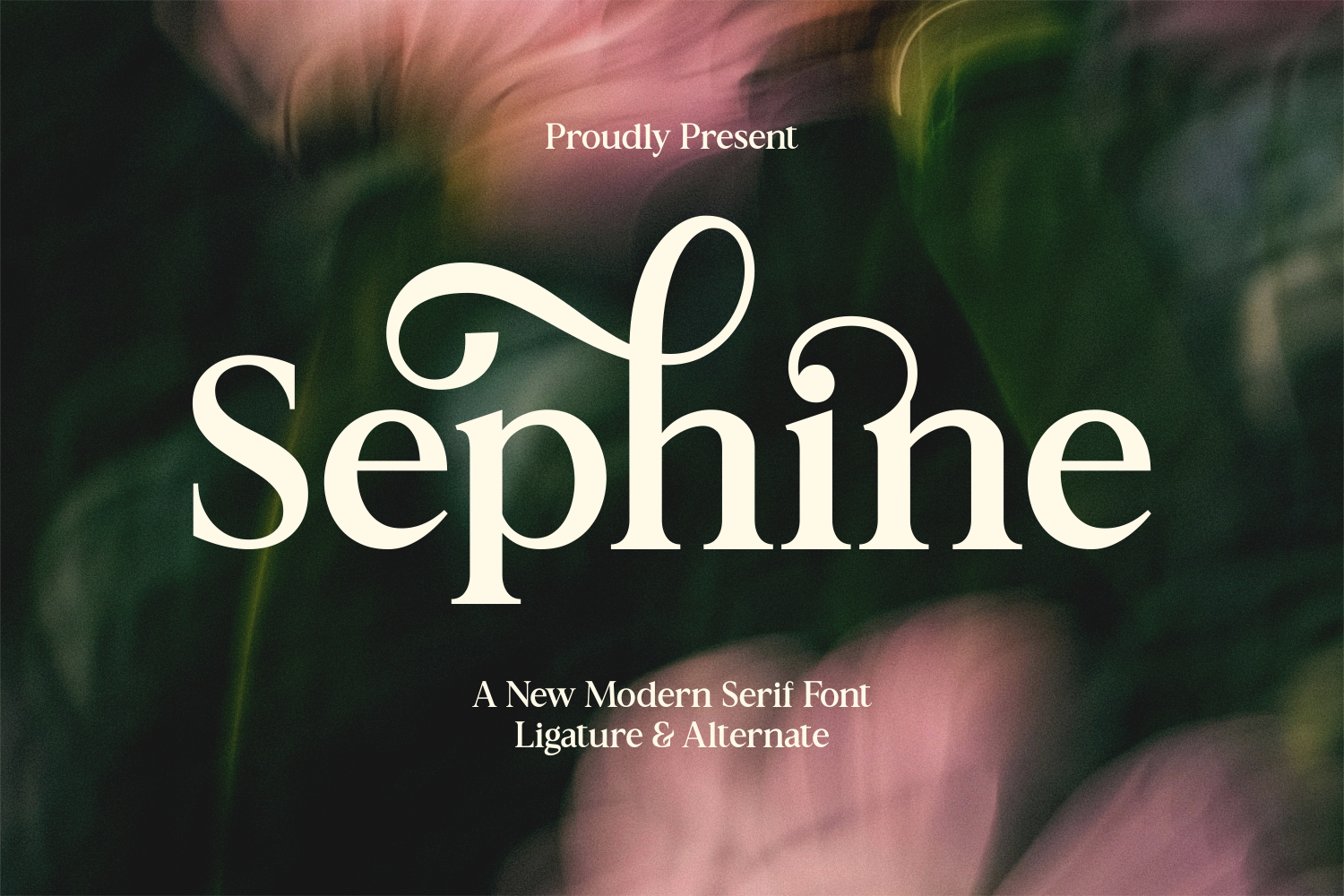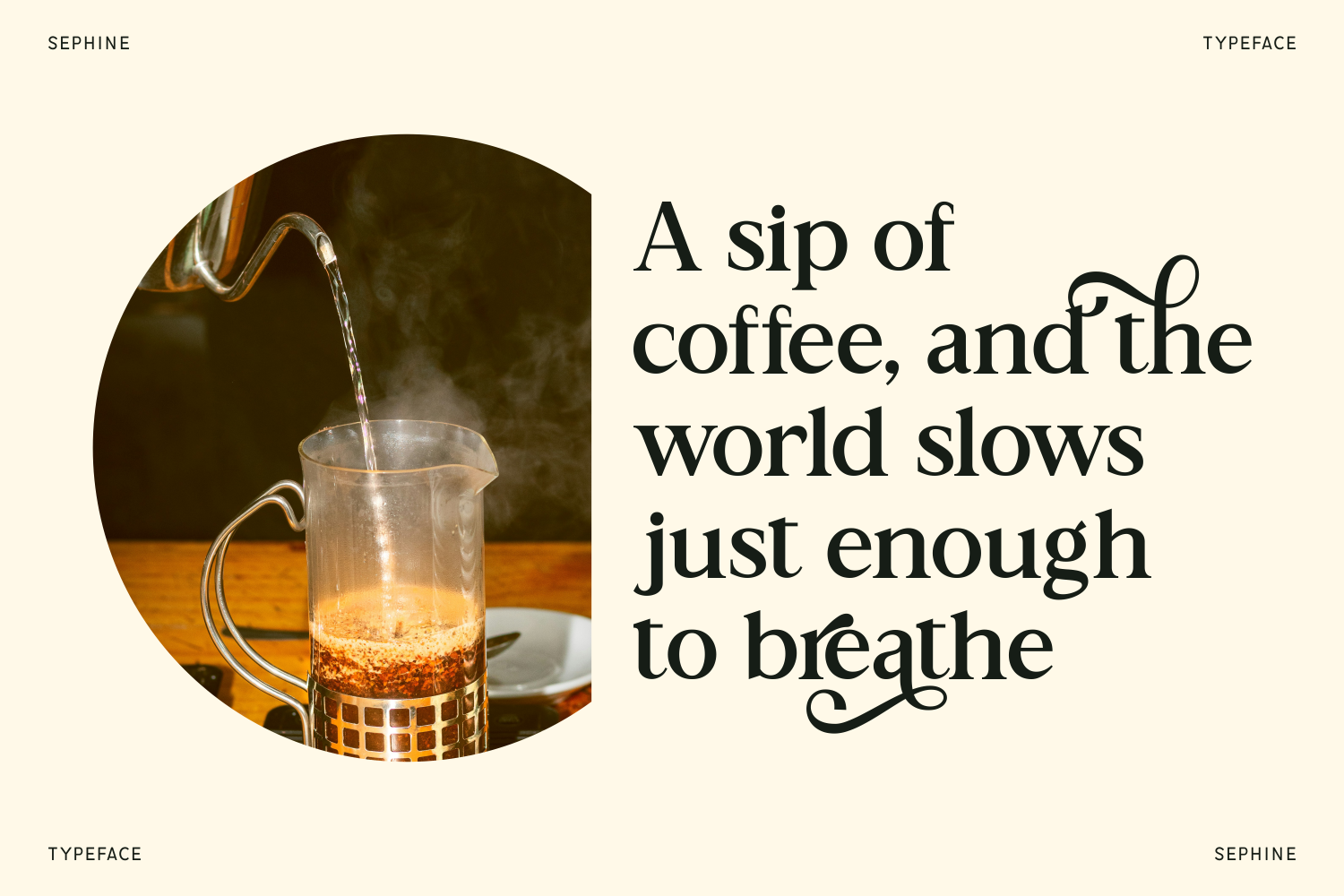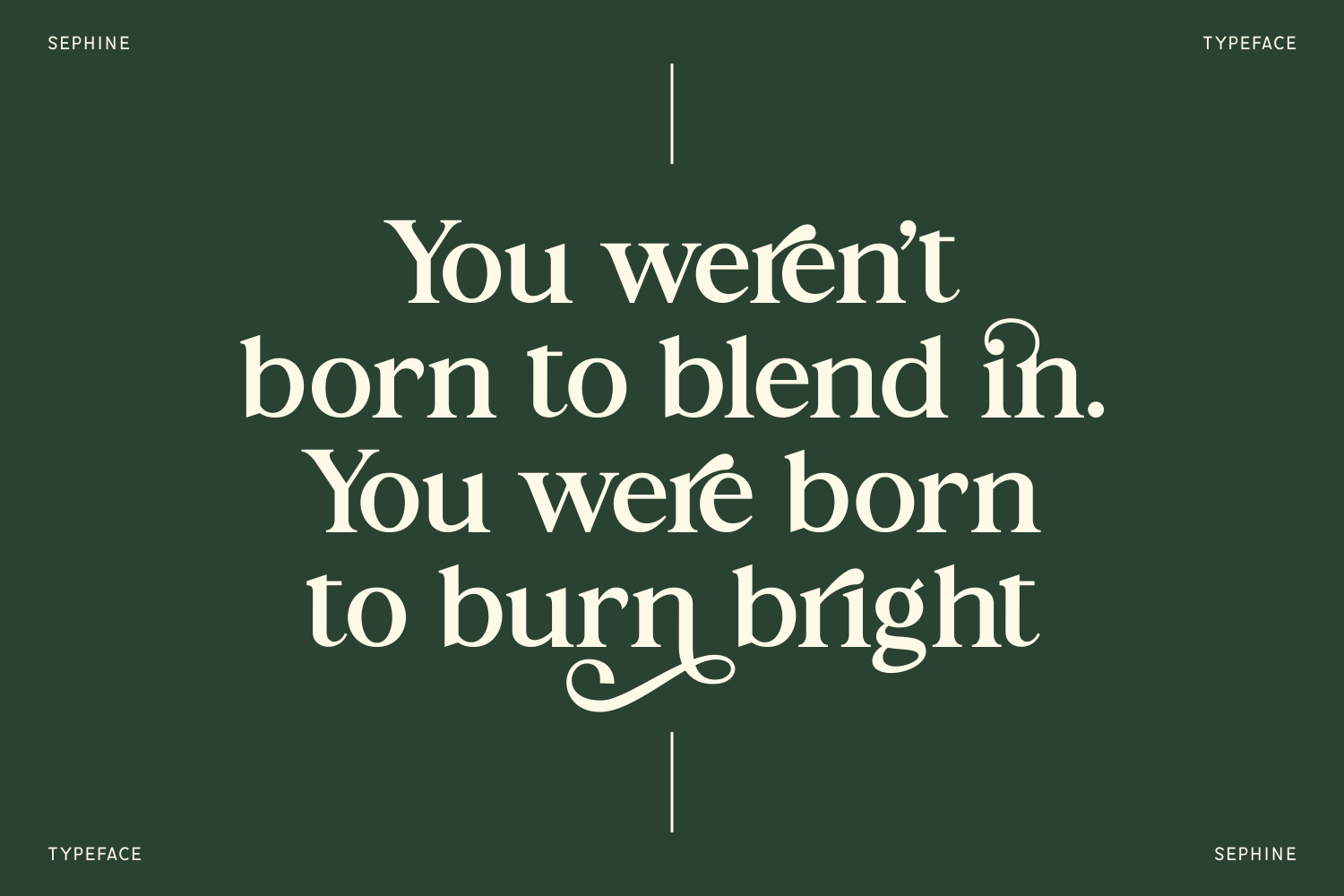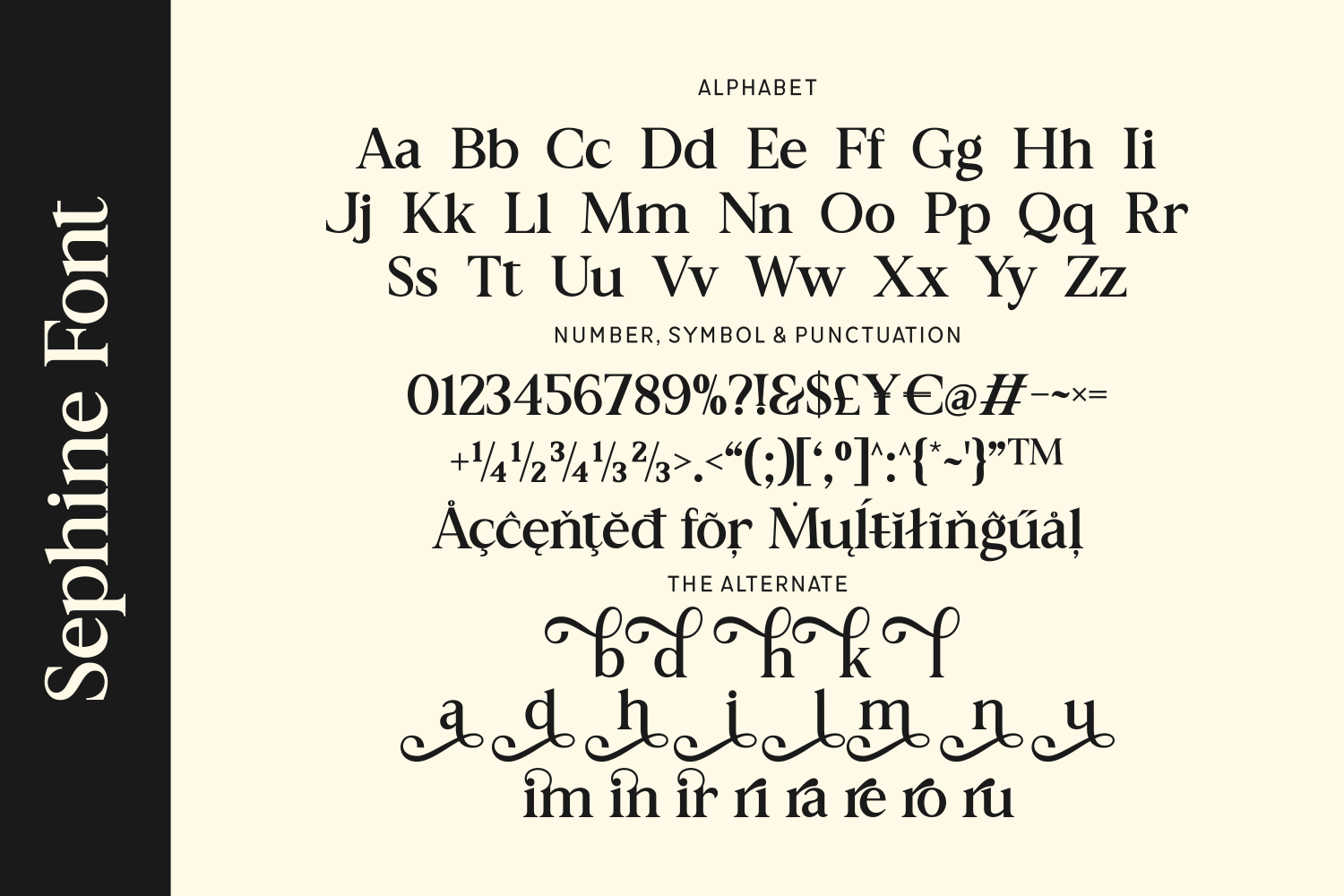
Sephine is a beautifully crafted modern serif font with elegant curves and elaborate alternates. Its flowing ligatures and refined details make it ideal for high-fashion branding, wedding invitations, editorials, and luxury product packaging. Sephine is perfect for when you want to add grace and drama to your design without compromising legibility.